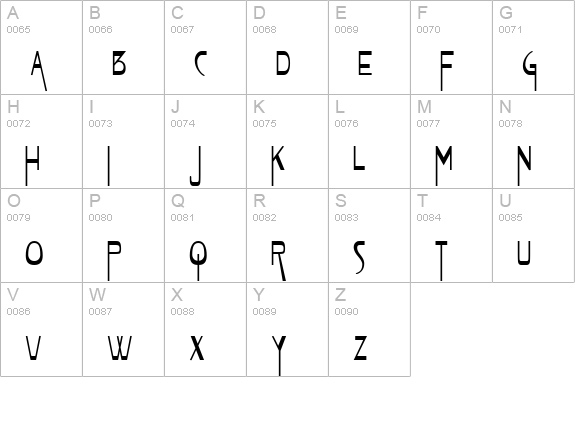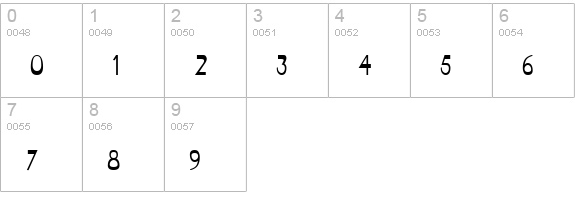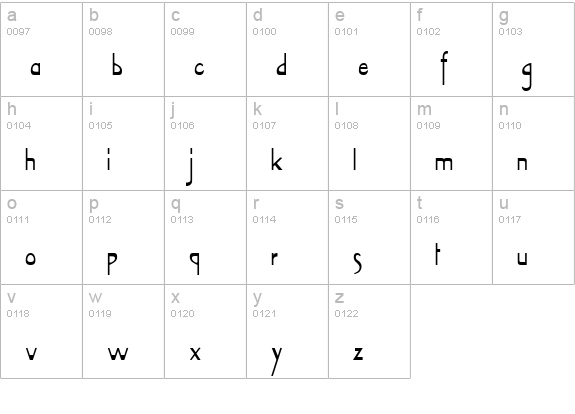
TabletCondensed Normal Font Details
TabletCondensed Normal is the standard, neutral variant in the TabletCondensed typeface family \xE2\x80\x94 well suited to general body text, paragraphs, and standard typographic work.
TabletCondensed Normal font is a sleek and modern typeface that is perfect for adding a touch of sophistication to any design project. Its condensed letterforms are clean and crisp, making it an excellent choice for headlines, titles, and other display purposes. This font is incredibly versatile and can be used in a variety of design applications, from print to digital media. Whether you're creating a magazine layout, designing a website, or crafting a logo, TabletCondensed Normal font will effortlessly elevate your design and make it stand out from the crowd. The best part is that TabletCondensed Normal font is completely free! It is freely available to download at FontsMarket.com, the go-to platform for high-quality and professionally designed fonts. With just a few clicks, you can start using this amazing font in your projects, without any cost or hassle. Not only does TabletCondensed Normal font offer a visually appealing aesthetic, but it also boasts excellent legibility, ensuring that your message is clear and easy to read. Its well-defined letterforms and balanced spacing make it a versatile choice for both large and small sizes, ensuring that your design remains visually impactful across different mediums and devices. So why wait? Download TabletCondensed Normal font for free at FontsMarket.com and add a touch of elegance to your design projects today!